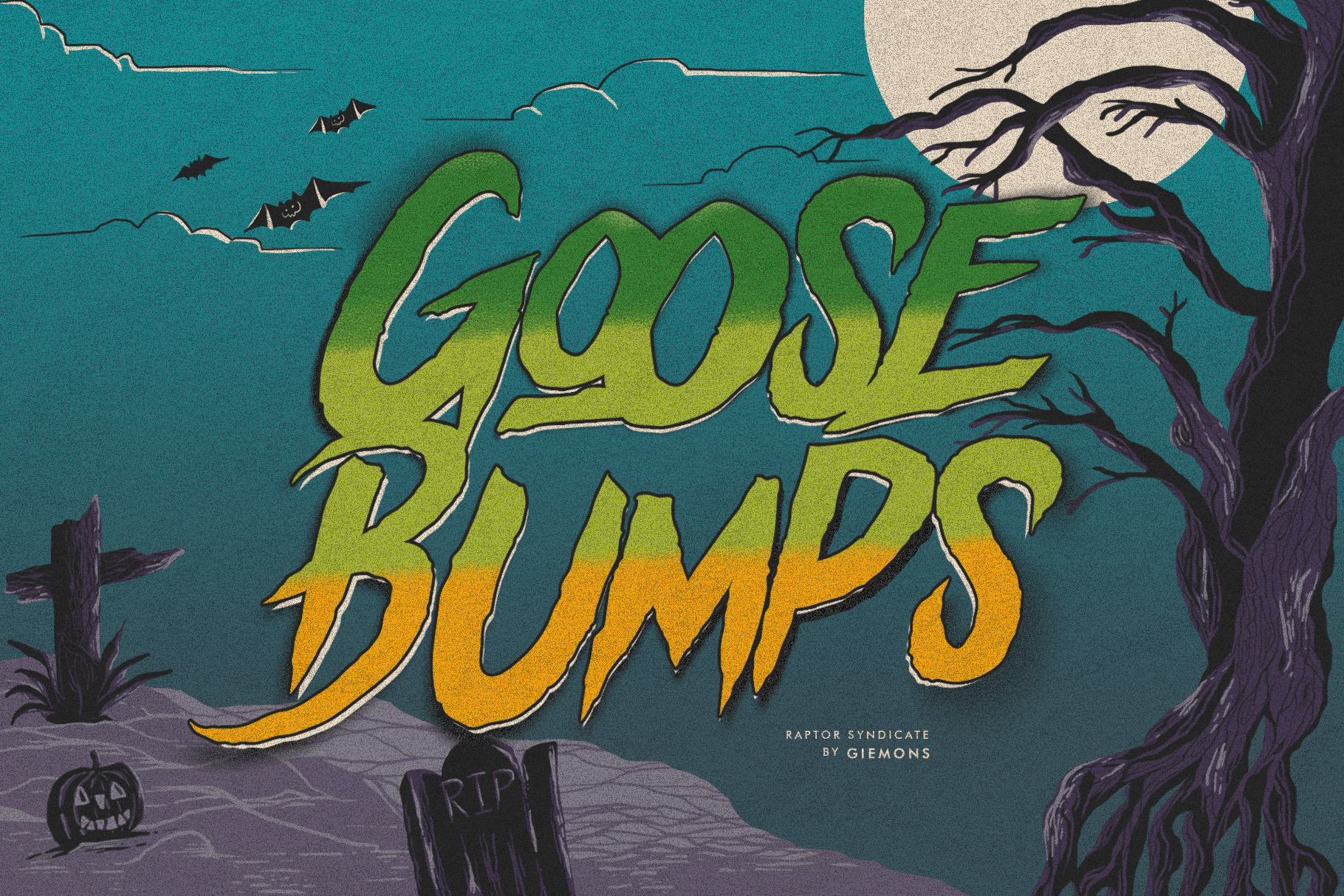
Raptor Syndicate - Halloween Font
Happy Spooky Design
a Raptor Syndicate is unique font with vector rough version. Can make it easier to convey the message in your design. Use for awesome display, labeling, clothing, movie sceen, poster, movie title, gigs, album covers, logos, and much more.
- Uppercases & Lowercases